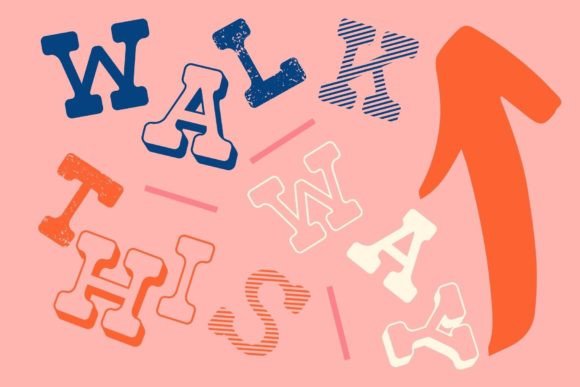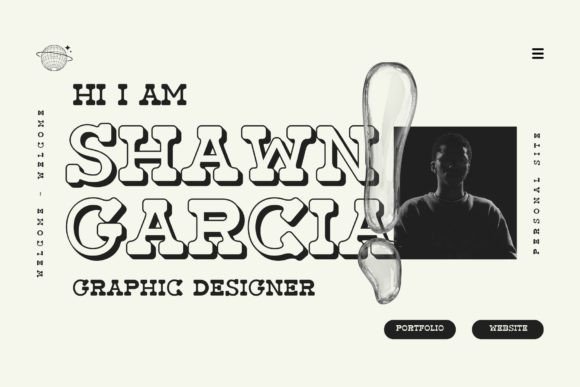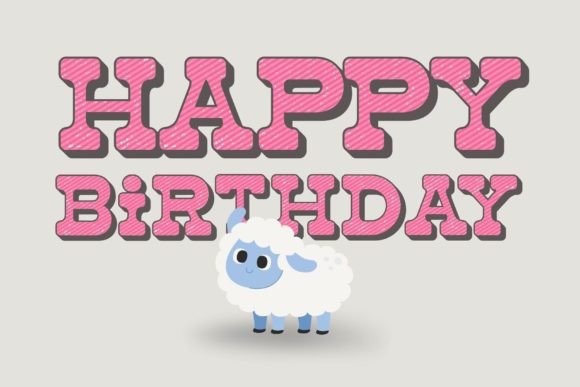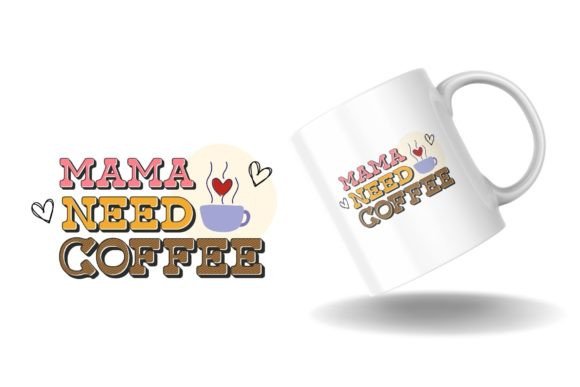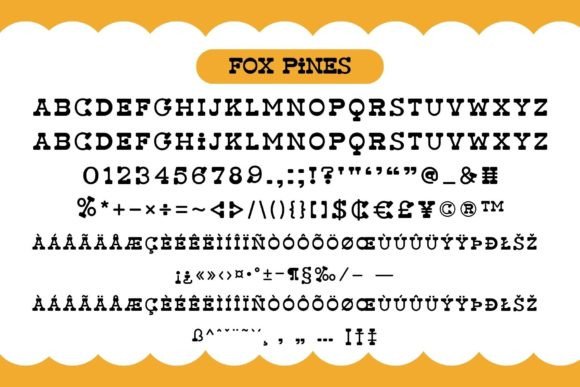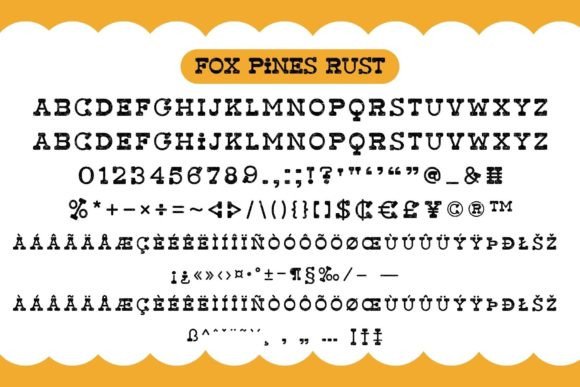
Introduction to Fox Pines Font
As a designer, have you ever found yourself stuck in a creative rut, struggling to come up with the perfect font to match your brand’s personality? I know I have. It’s that moment when you’re brainstorming ideas for a project, and the right font just seems to be the missing piece that brings everything together. For me, that moment came when I stumbled upon the Fox Pines Font – a game-changing, high-quality design resource that adds a touch of magic to any creative project.
With its vibrant and expressive design, Fox Pines Font is perfect for designers looking to add a unique twist to their designs. Whether you’re working on a publication, menu, logo, business card, or even a printed t-shirt, this versatile font is sure to grab attention and leave a lasting impression. And the best part? It’s available for free download, making it an invaluable resource for any designer looking to elevate their designs to the next level.
Key Features of Fox Pines Font
- High-quality design resource ideal for creative projects, including logos, branding, and graphics.
- Includes a range of stylish and elegant characters, perfect for adding a touch of sophistication to your design.
- Perfect for designers seeking a unique and creative font to elevate their designs and stand out from the crowd.
Honest Review: Fox Pines Font
I recently had the opportunity to work with the Fox Pines Font, and I’m excited to share my honest review with you. This font is a great addition to any designer’s toolkit, offering a unique and stylish look for your creative project.
- ✨ High-quality design: The Fox Pines Font is well-crafted, with smooth lines and a professional appearance.
- ✨ Versatile: This font is suitable for a variety of design projects, from logos to signage, and can be easily customized to fit your needs.
- ⚠️ Limited character set: The Fox Pines Font may not have as extensive a character set as some other fonts, which could limit its use in certain projects.
- ⚠️ May not be suitable for small text: The font’s style can make small text difficult to read, so it’s best to use it for larger headings or titles.
Overall, I’m impressed with the Fox Pines Font. Its unique style and high-quality design make it a valuable addition to any designer’s toolkit. While it may have some limitations, it’s a great resource for designers looking for a free, high-quality font for their creative project.
Tips for Getting the Most Out of Fox Pines Font
To get the most out of the Fox Pines Font, be sure to experiment with different font sizes, colors, and styles. You can also combine the font with other design elements, such as graphics and images, to create a unique and eye-catching design. Additionally, consider using the font’s transparent background to create a layered design.
Common Use Cases for Fox Pines Font
Is the Fox Pines Font suitable for high-resolution printing?
Yes, the Fox Pines Font is designed to be high-quality and suitable for high-resolution printing. It’s optimized for use in various print media, including business cards, brochures, and posters. With its clear and crisp typography, the Fox Pines Font is perfect for any project that requires a professional and polished look.